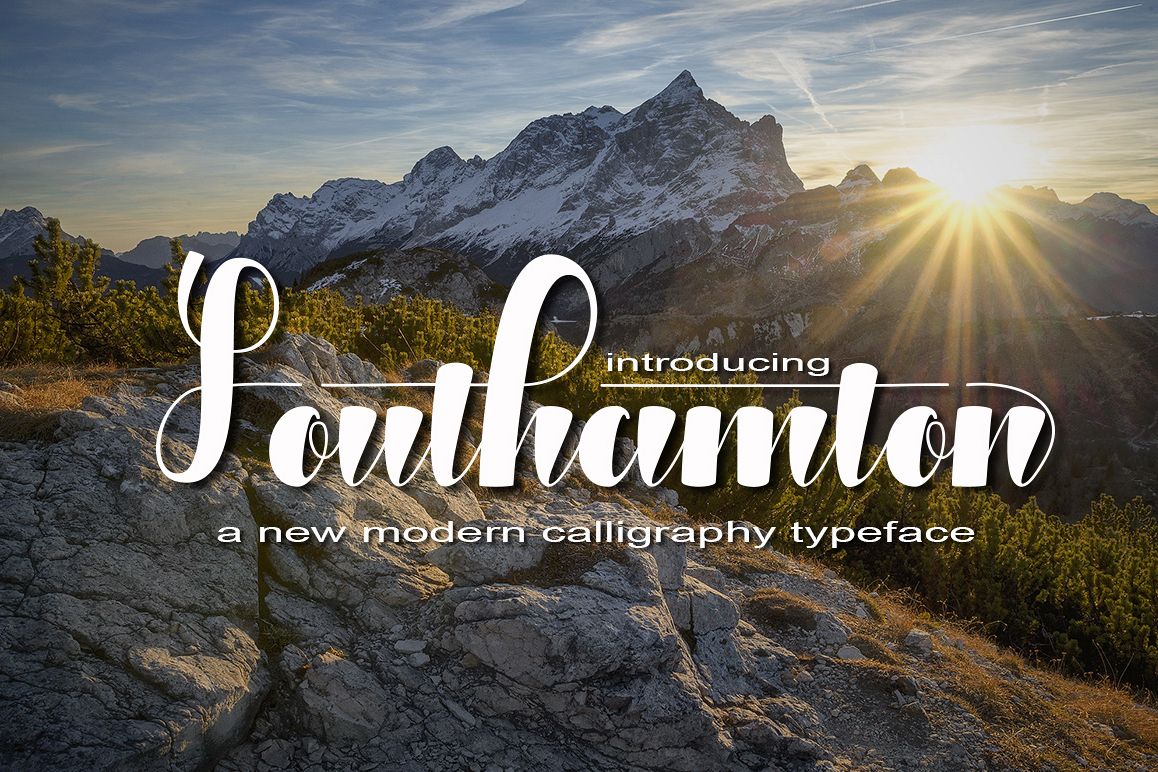
Southamton
Southamton is modern script font, every single letters have been carefully crafted to make your text looks beautiful. With modern script style this font will perfect for many different project ex: quotes, blog header, poster, wedding, branding, logo, fashion, apparel, letter, invitation, stationery, etc.